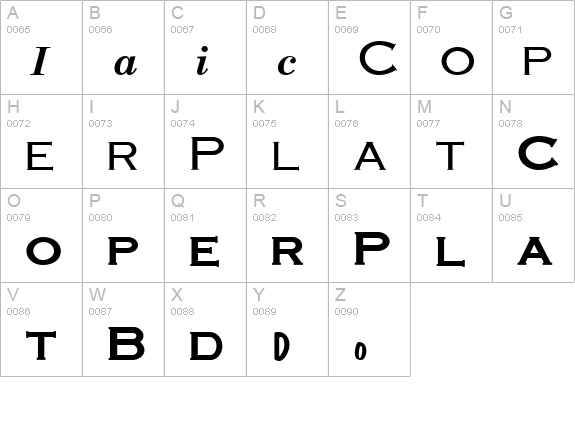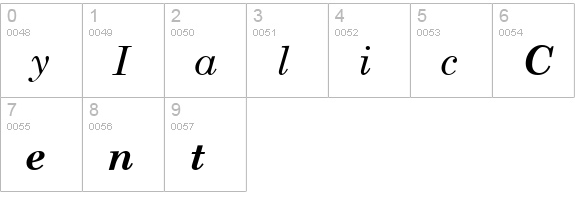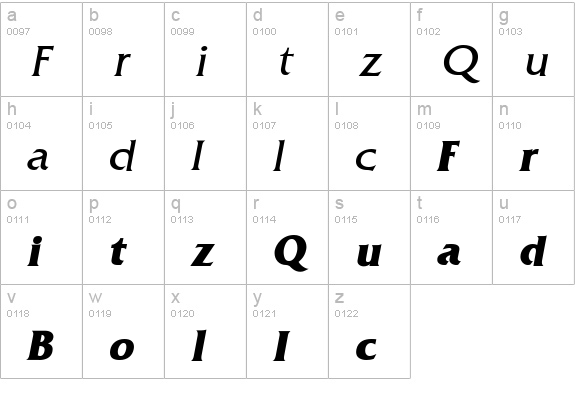
Sample ESF Normal is the standard, neutral variant in the Sample typeface family \xE2\x80\x94 well suited to general body text, paragraphs, and standard typographic work.
Introducing the extraordinary Sample ESF Normal font, a versatile typeface that effortlessly combines elegance and modernity. With its clean lines and balanced proportions, this font is perfect for any design project that requires a touch of sophistication. Whether you're creating a sleek logo, a stylish website, or eye-catching print materials, Sample ESF Normal will elevate your work to new heights. This font offers a wide range of characters, including uppercase and lowercase letters, numbers, punctuation marks, and special symbols. Its smooth curves and precise details make it easy to read, ensuring that your message is conveyed with clarity and professionalism. One of the best things about Sample ESF Normal is that it is completely free to download and use. That's right, you can enhance your designs with this incredible font without spending a dime. Simply head over to FontsMarket.com and grab your copy today. With Sample ESF Normal, you have the freedom to explore your creativity and make a lasting impression. Whether you're a seasoned designer or just starting out, this font will quickly become a valuable addition to your toolkit. So don't miss out on this amazing opportunity to elevate your designs with a high-quality, freely available font. Download Sample ESF Normal now and start creating stunning visuals that leave a lasting impact.